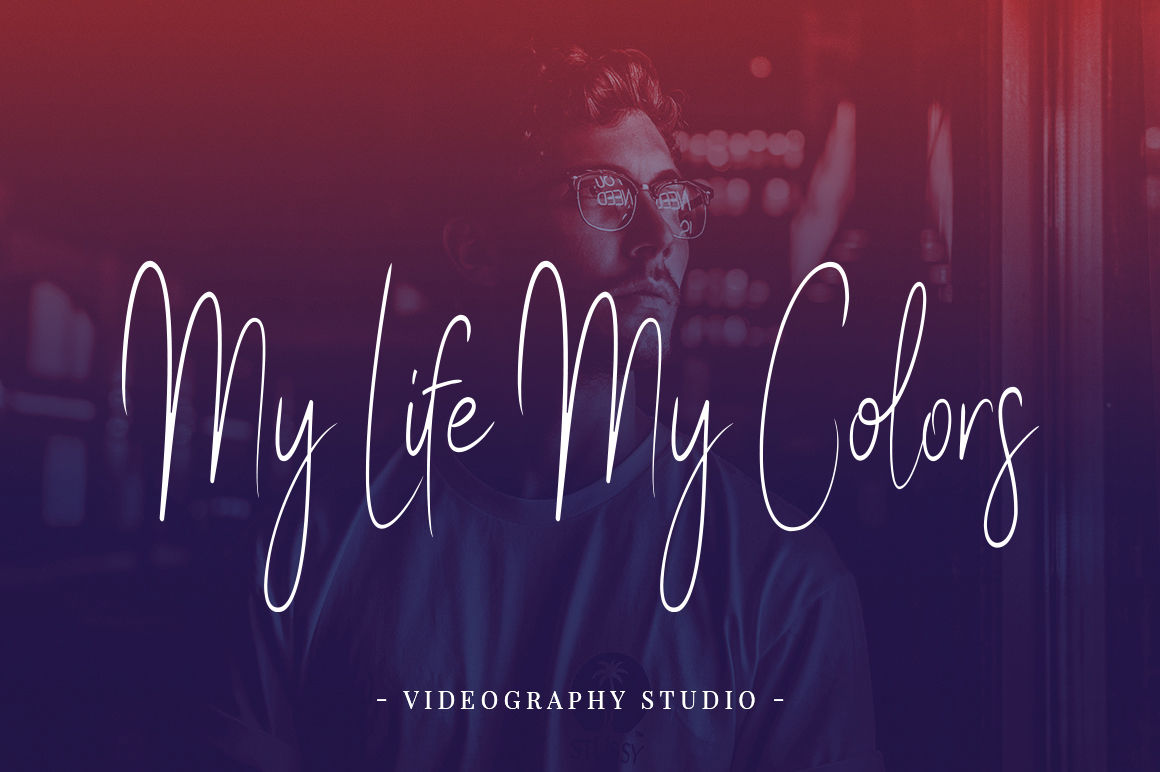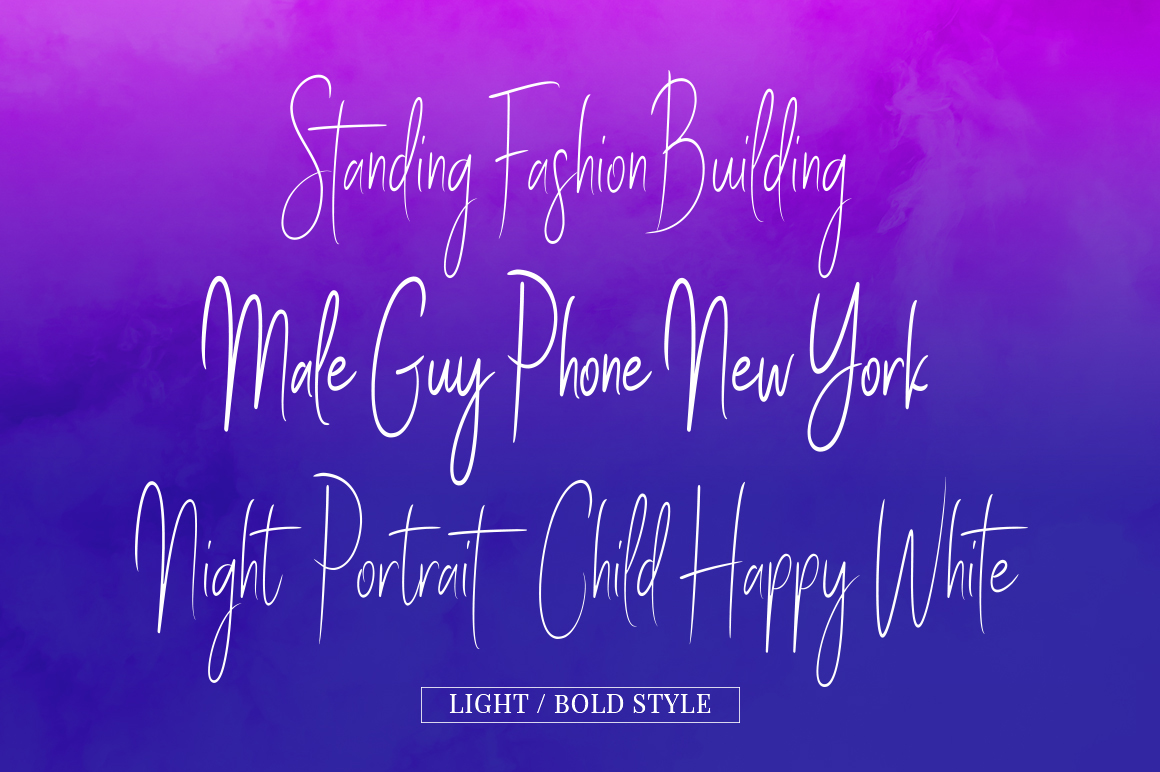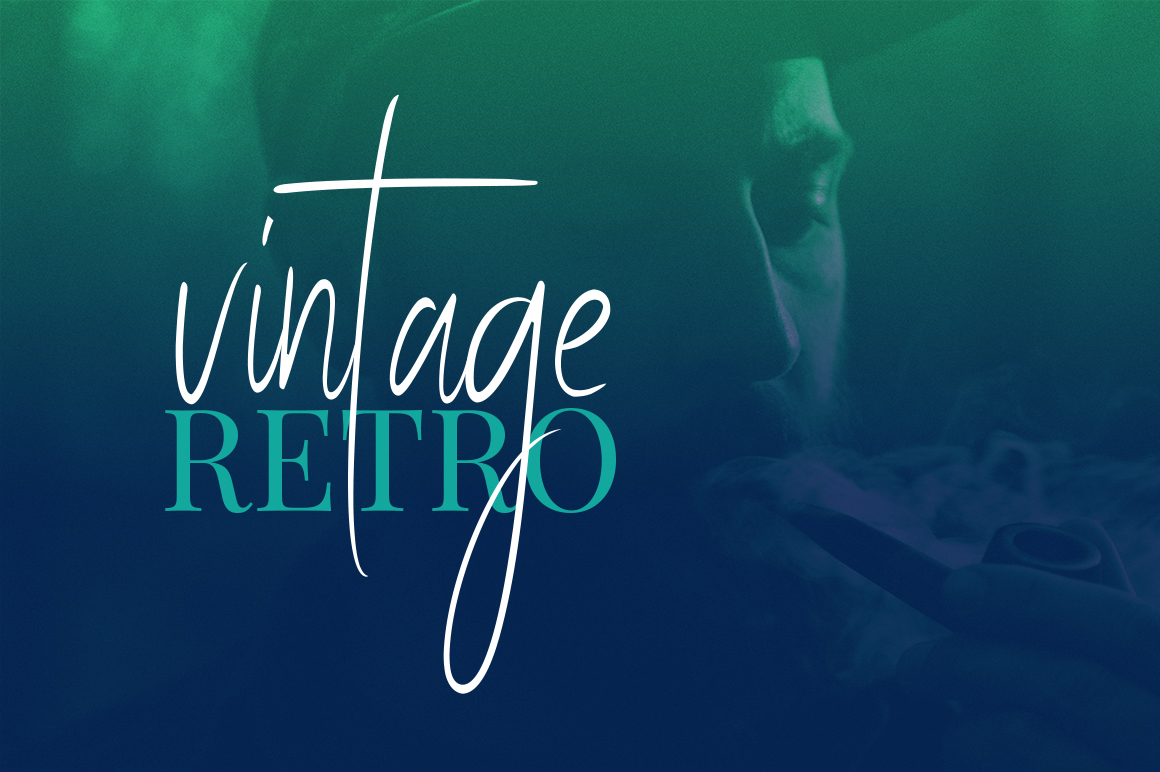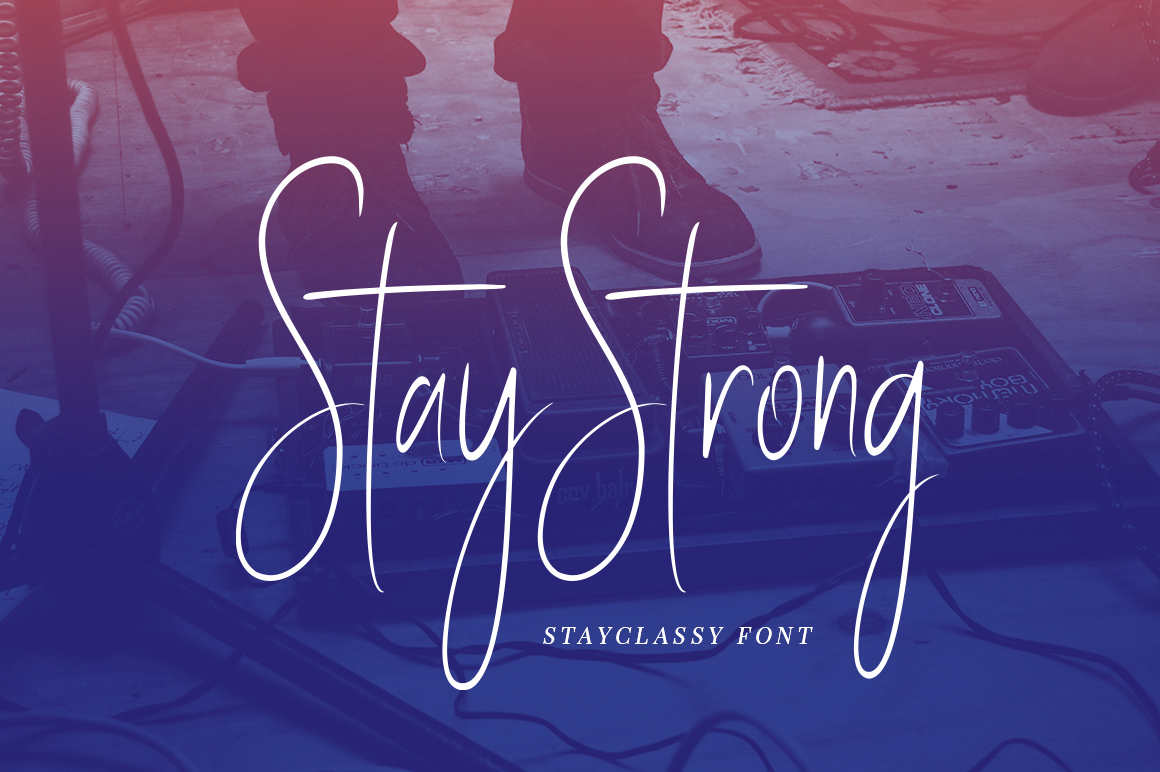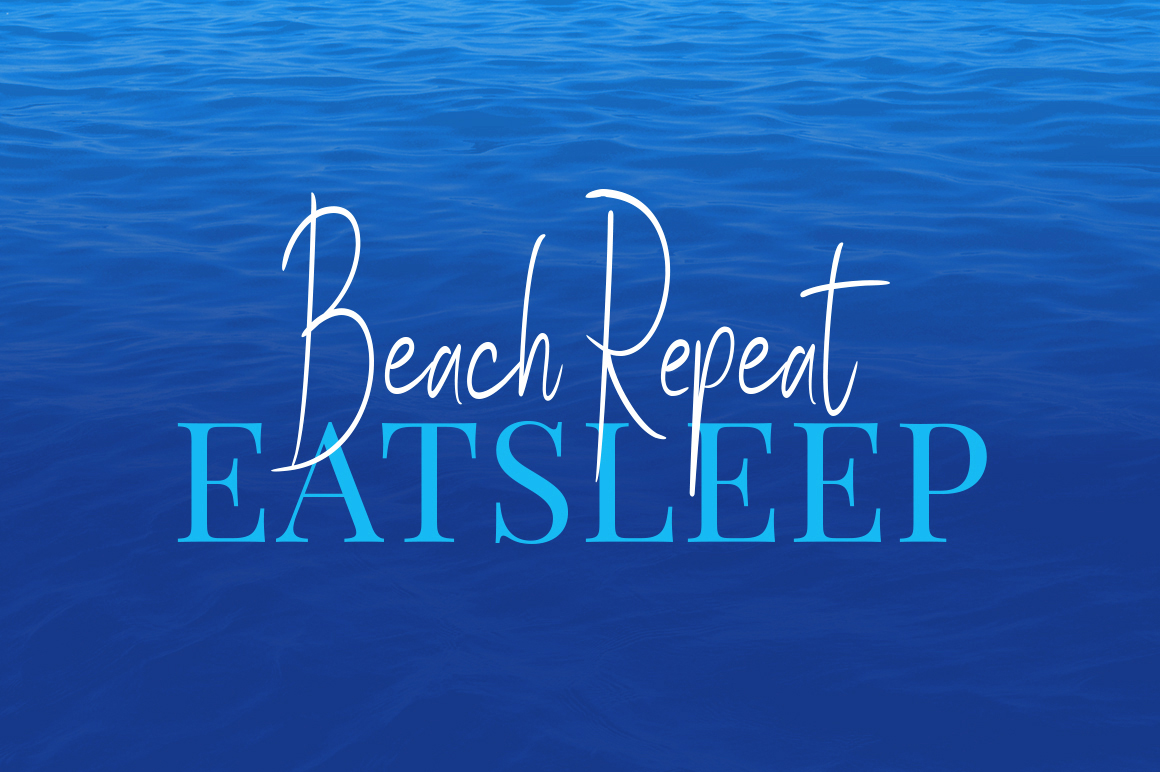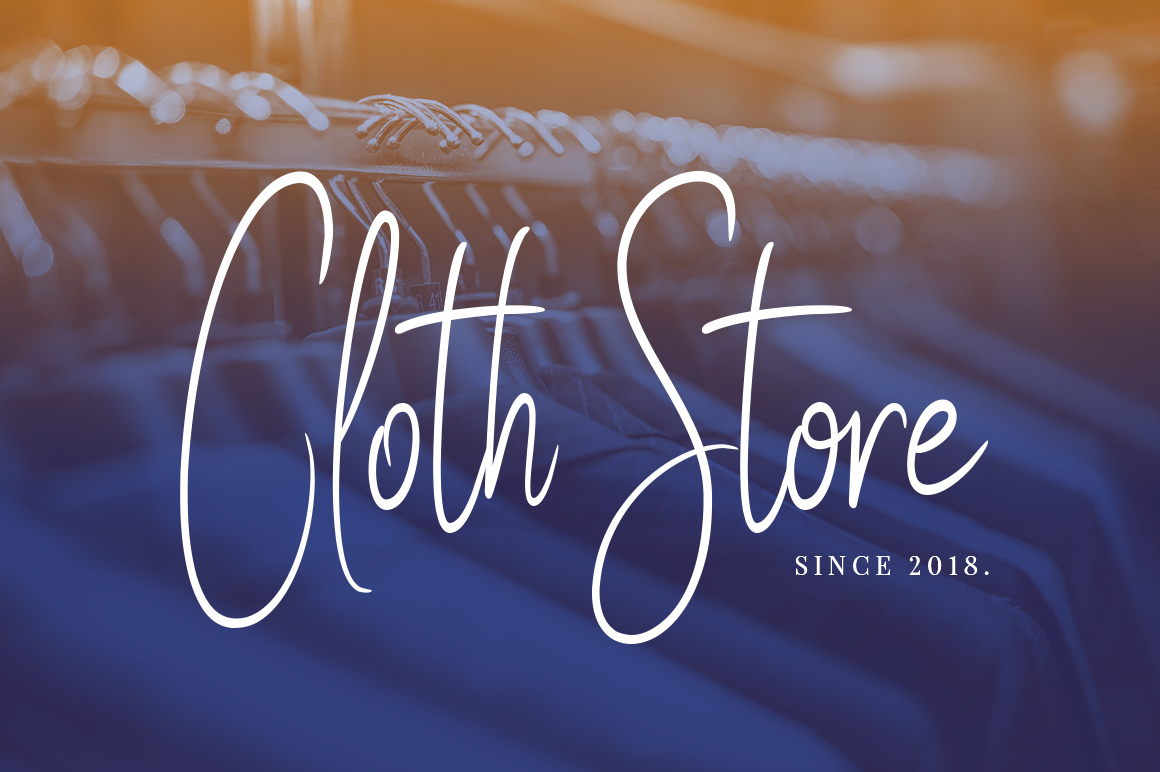
Stay Classy Font
About Stay Classy Font
Stay Classy is a gorgeous and simple handwritten script font; contemporary and fashionable, Stay Classy looks great for a large range of project types. This elegant font is legible and looks great as a headline or in body text.